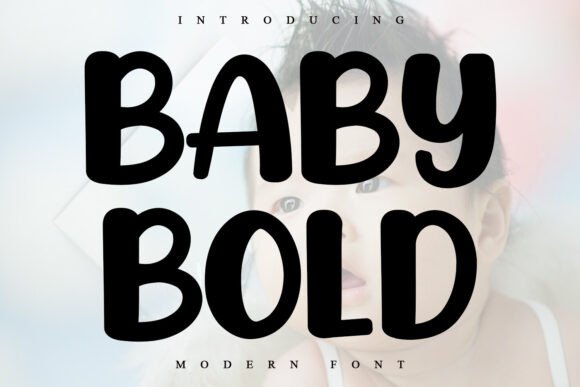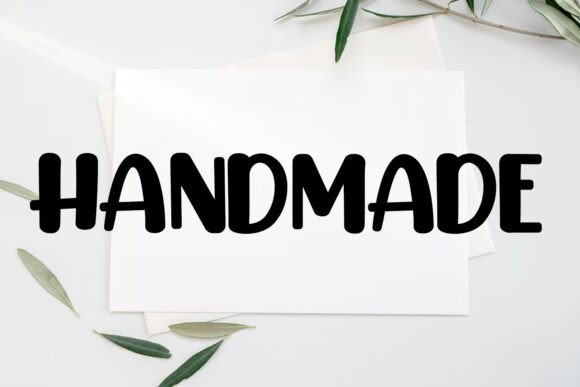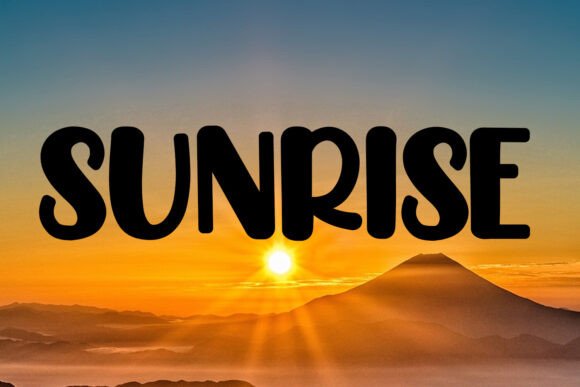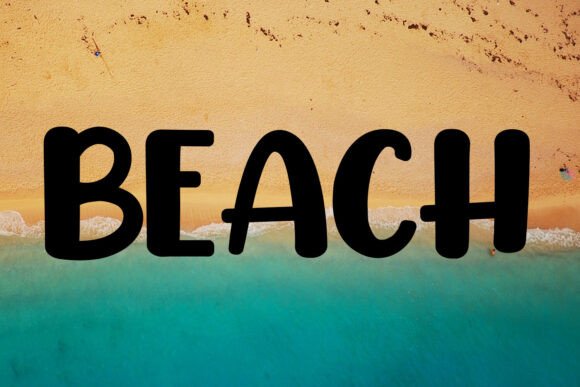
Baby Bold Font
About the Baby Bold Font
The Baby Bold Font is here to transform your projects with its distinctive character and style. Introducing Baby Bold – an exquisitely unique font that breathes life into your designs. With a clean, robust aesthetic, this font seamlessly complements a multitude of creative mediums. From the flamboyant flare of YouTube banners to the sophisticated elegance of wedding invitations, Baby Bold serves as the perfect textural accent. It is equally at home adorning ID cards, enhancing cover logo mockups, or gilding the lily on craft projects. Its simplicity and distinctiveness promise to be a dynamic tool in advancing and diversifying your business spectrum. Unleash your creativity with Baby Bold – a font that is as versatile as it is stylish.
Baby Bold Font Usage Examples
Baby Bold Font Example